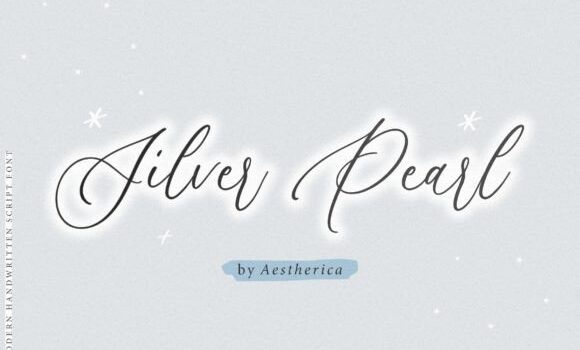
Silver Pearl Font
Introduction to Silver Pearl Font Imagine you’re flipping through a high-end magazine, and a beautiful product packaging catches your eye. The elegant design and delicate typography make you want to learn more about the brand. This is exactly what happens